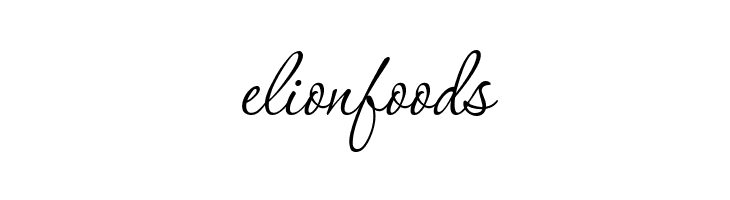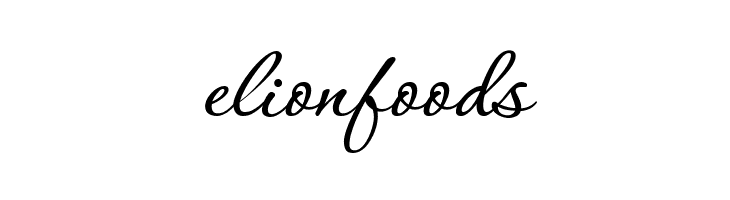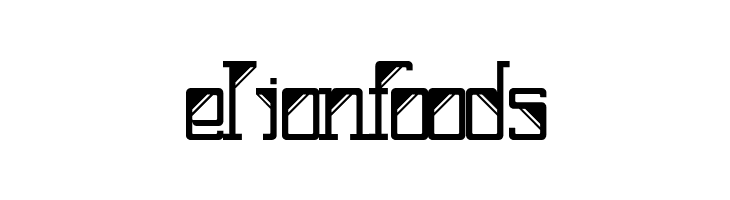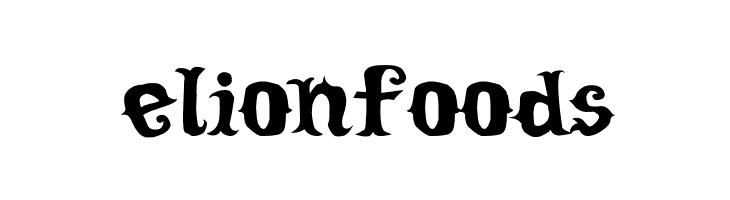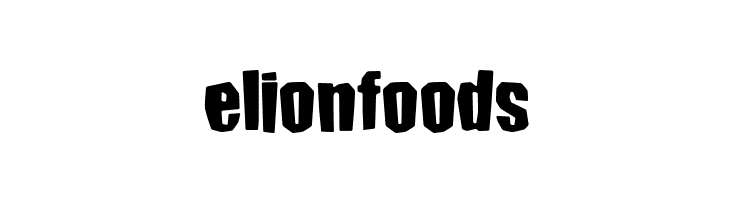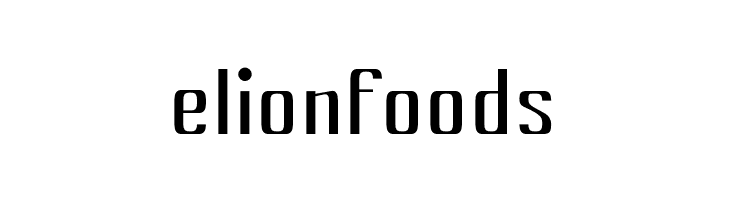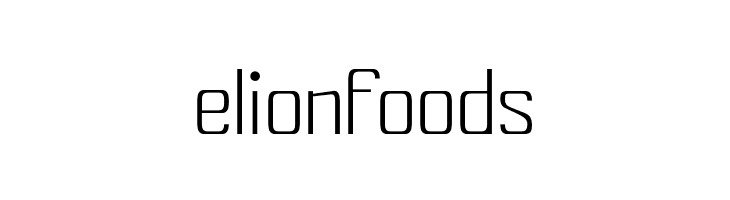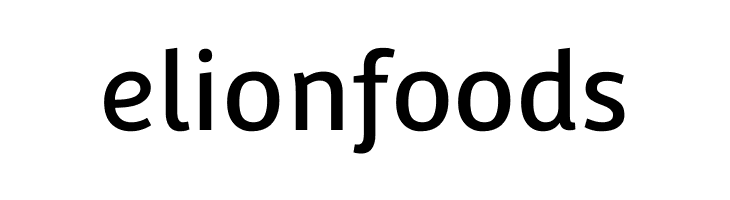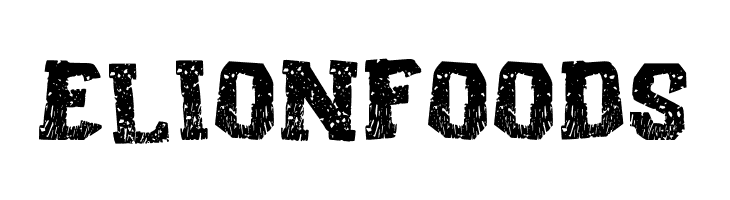
A sleek, modern font with geometric lines and a minimalist style.
A modern, geometric font with a sleek and clean design.
A playful, casual handwritten font with smooth curves and consistent stroke width.
A bold, dynamic font with a playful, distorted style.
) A clean, modern sans-serif font with consistent stroke widths and geometric letterforms.
A modern, geometric font with sharp edges and uniform stroke width.
A bold, modern font with geometric precision and strong visual impact.
A decorative, elongated font with tall, narrow letterforms and a modern flair.
A modern, geometric font with a clean and precise design.
A bold, expressive handwritten font with dynamic strokes.
A decorative serif font with ornate detailing and playful curves.
A modern serif font with medium contrast and elegant serifs.
A whimsical and decorative font with imaginative, storybook-like characters.
A bold, hand-painted style font with thick, textured strokes.
A bold, rounded serif font with a modern twist and smooth curves.
A bold, rounded font with a playful and robust style.
A bold, rounded font with a playful and friendly style.
A bold, rounded serif font with a modern and playful style.
A bold, rounded font with a playful yet sophisticated style.
A whimsical, circus-inspired font with bold, decorative characters.
A bold, decorative font with an outline effect and whimsical, theatrical style.
A bold, decorative font with a whimsical, circus-inspired style.
A rugged, textured font with a vintage, woodcut print style.
Bold, calligraphic script font with elegant, flowing letterforms.
A refined, cursive script font with elegant calligraphic strokes.
A geometric, angular font with a modern and technical design.
A bold, hand-drawn font with a playful outline style.